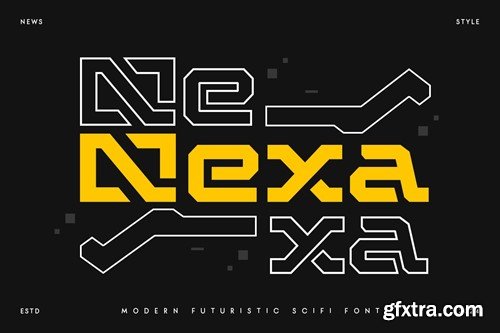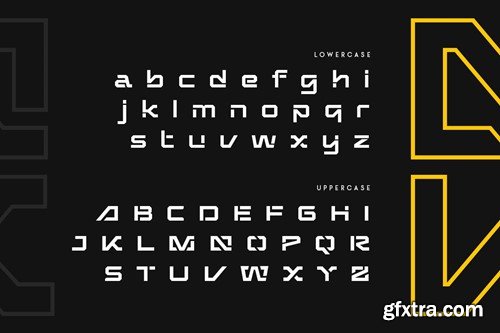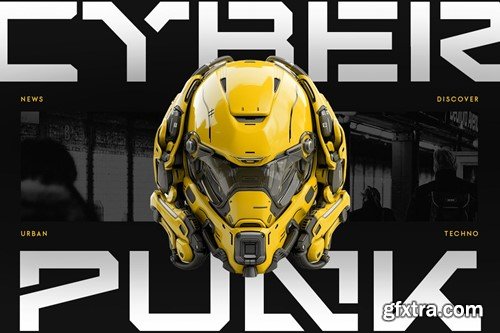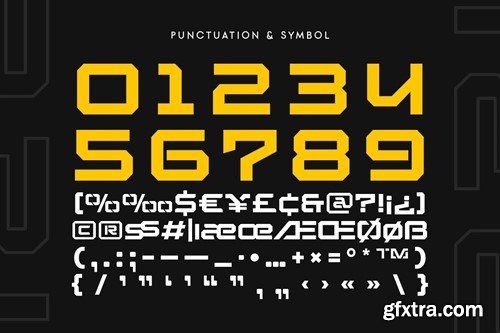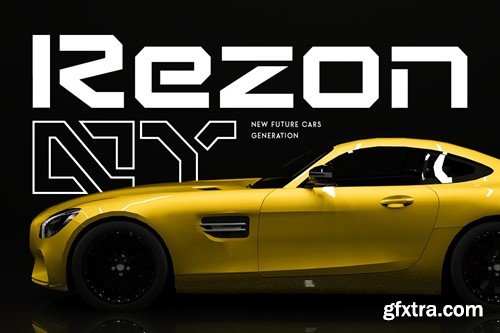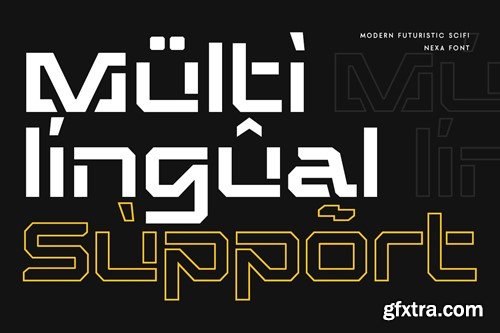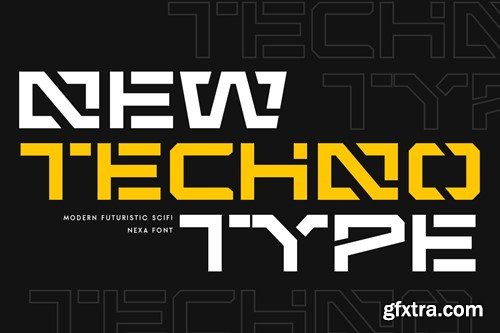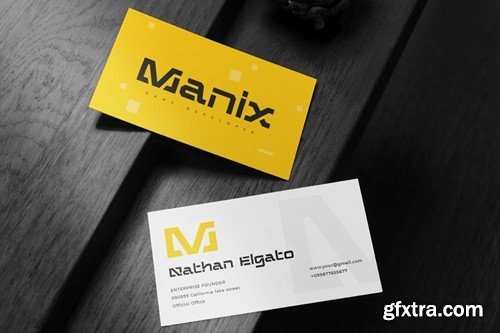
Introducing Nexa, the ultimate font for futuristic and cyberpunk-inspired designs. Perfectly blending sci-fi aesthetics with cutting-edge technology, Nexa is designed to elevate your projects to a new level of modernity and innovation. Nexa Font Features: Transform your designs with Nexa, a font that brings the essence of futuristic, cyberpunk, and sci-fi technology to life. Whether you're working on high-tech branding, immersive digital experiences, or sleek modern visuals, Nexa provides the perfect blend of style and functionality. Embrace the future with Nexa and make your designs unforgettable.